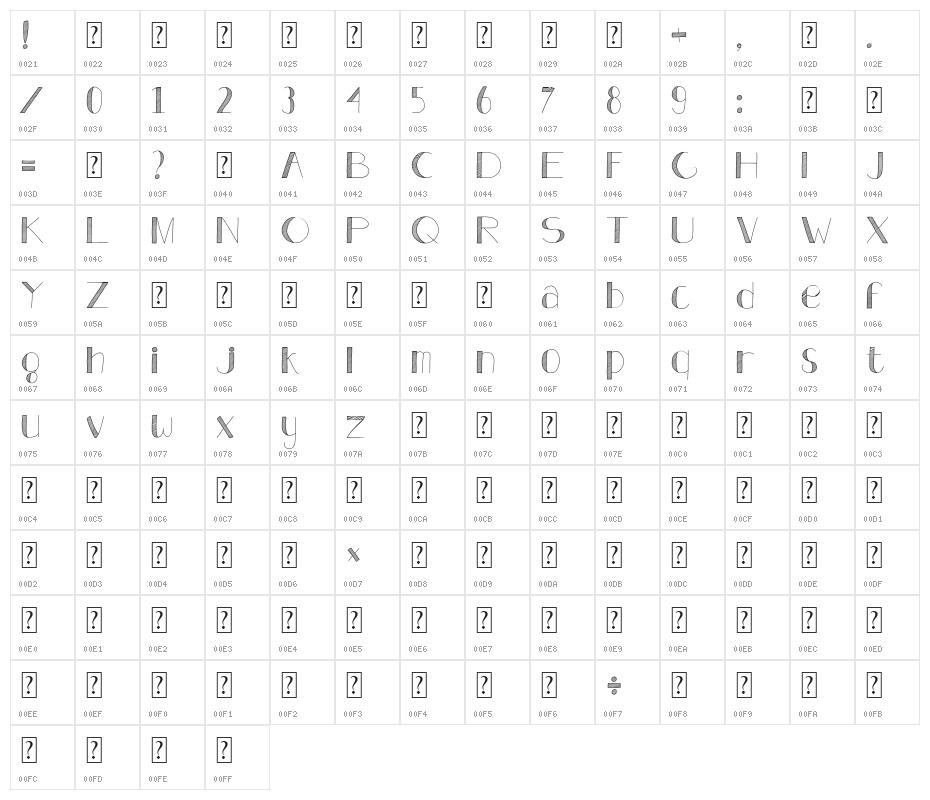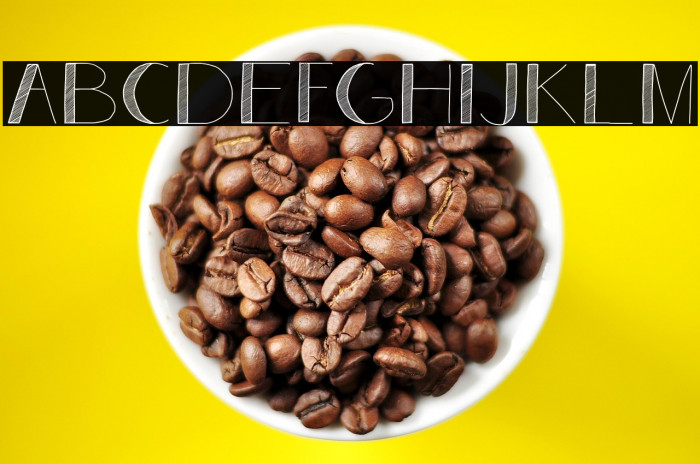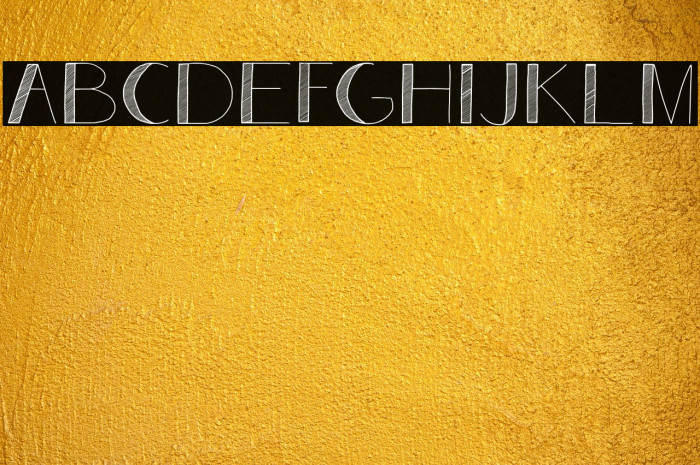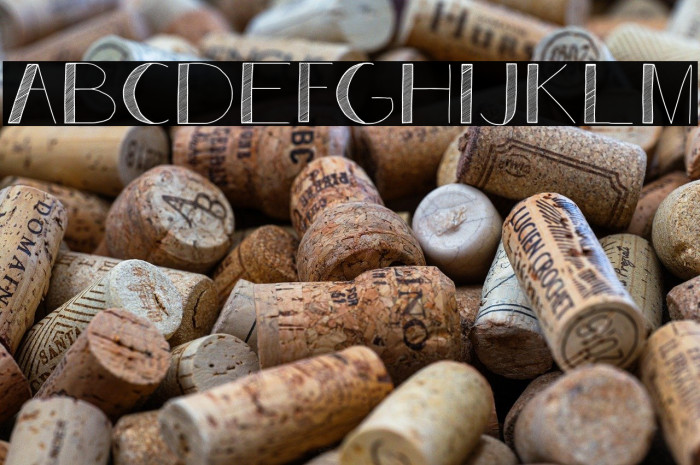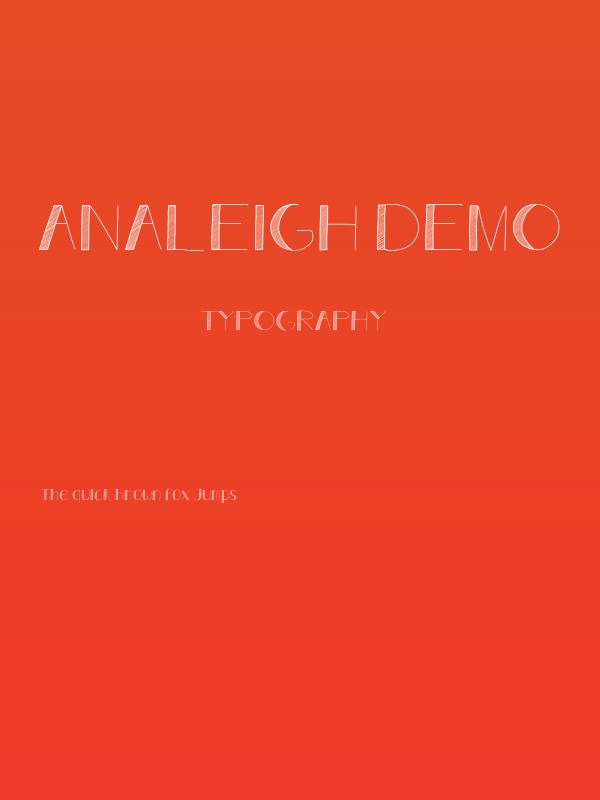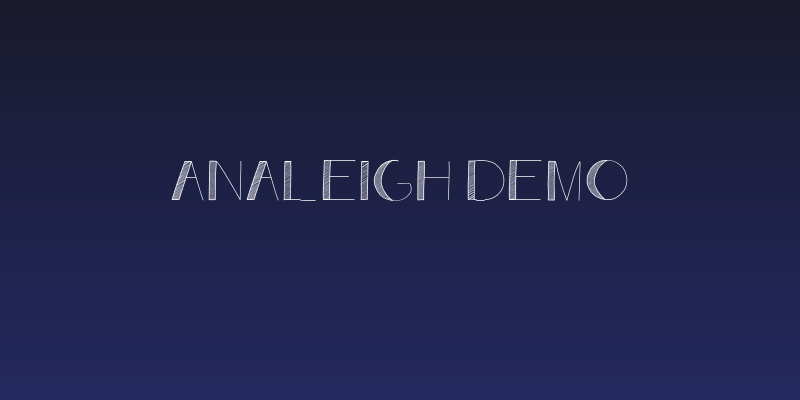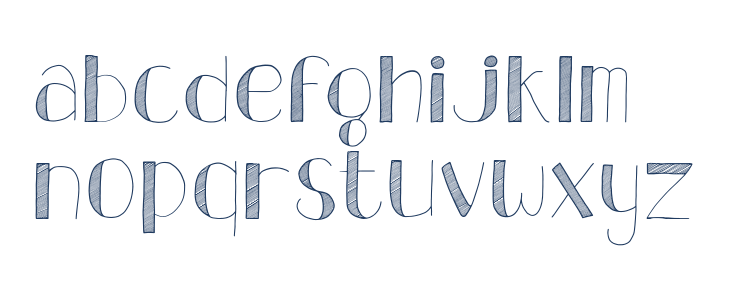
Analeigh Demo Font
Analeigh Demo Description
This font features a unique blend of modern and artistic elements, characterized by its hand-drawn appearance and subtle shading within each character. The uppercase letters exhibit a playful yet sophisticated style with varying stroke widths, giving them a dynamic and textured look. The lowercase letters maintain a consistent style, with rounded forms and a slightly whimsical touch. Numbers are crafted with the same artistic flair, ensuring a cohesive look across all characters. Special characters are included, maintaining the font's distinctive style. This font is ideal for projects that require a creative and personal touch, such as invitations, branding, or artistic posters.
| Overall Style | Modern, Artistic |
| Use Case | Headlines, Artistic projects, Invitations |
| Proposed Projects | Ideal for invitations, branding, artistic posters, and creative projects. |